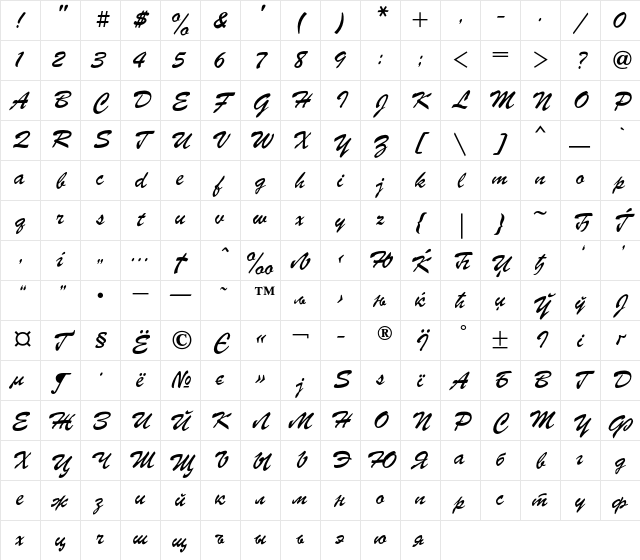
ParsekC Regular
Design Context for ParsekC
ParsekC is a composed and adaptable typeface that performs quietly and consistently across a wide range of design contexts.